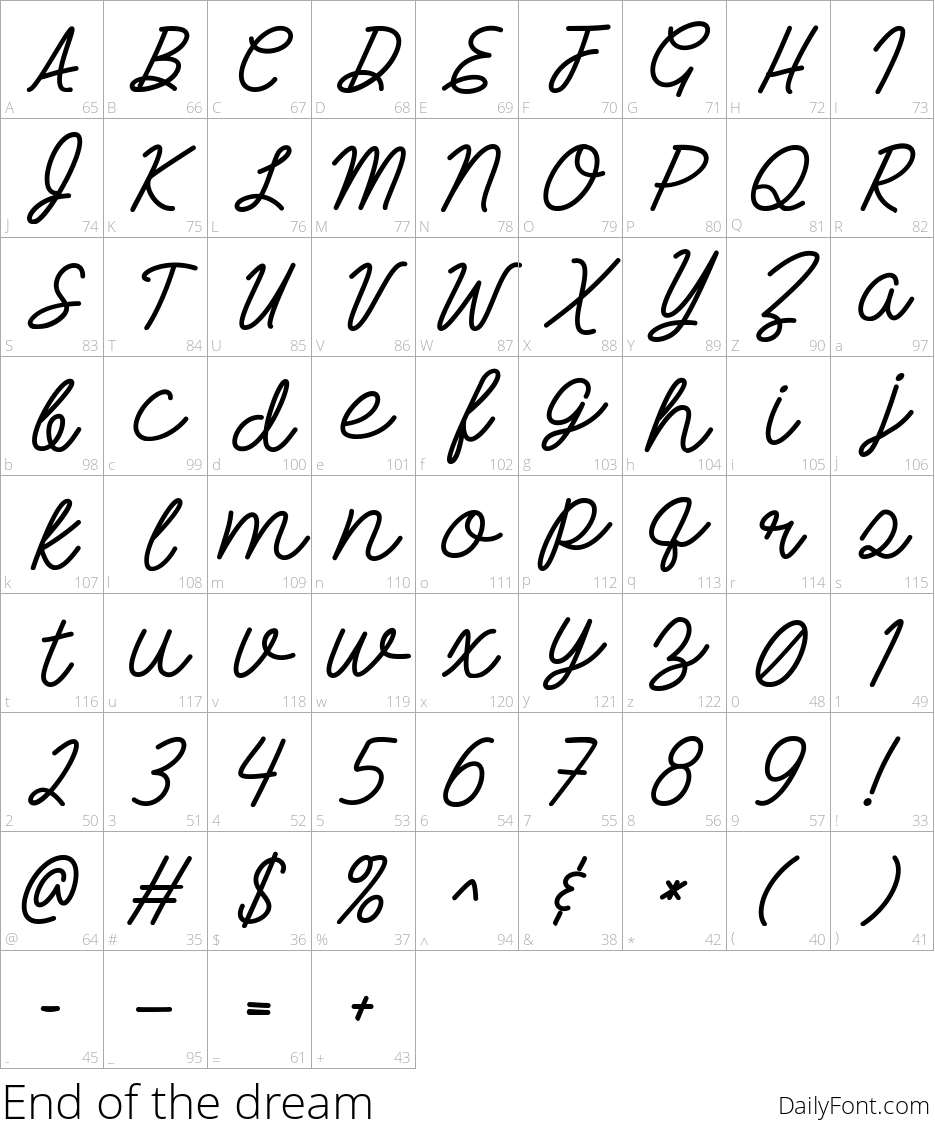
End Of The Dream by Misti's Fonts
Whimsical handwritten font with flair, ideal for creative designs, invitations, and personal projects requiring a touch of elegance.
Misti Hammers is a font designer in Germany who focuses on script, handwritten fonts.